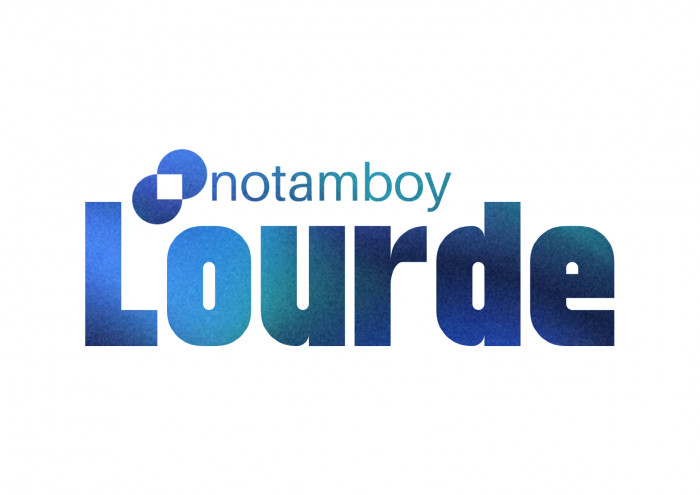
• This is my first ever font using ideas to make an heavy sans-serif typeface. I was inspired by elmoyenique and Jamie Place (FontBlast). I'm not stealing ideas from anybody by the way, I've wanted to share something to explain a journey of making my own fonts in life.
I got some aspect of making the glyphs look heavier. I've tried to make the letter f, but it flawlessly has the same height as the other glyphs. If I make number four, than I've obviously make it like this because the slanted bricks are not enough to make up a four glyph. Some of the glyphs (for example: ð, ß, ™, ®) are hard to build it because it was considered to be rounded by its curve and too small if the text was heavier.
When I run out of name ideas, the only idea of this font name i've chose is Lourde (french word for heavy).